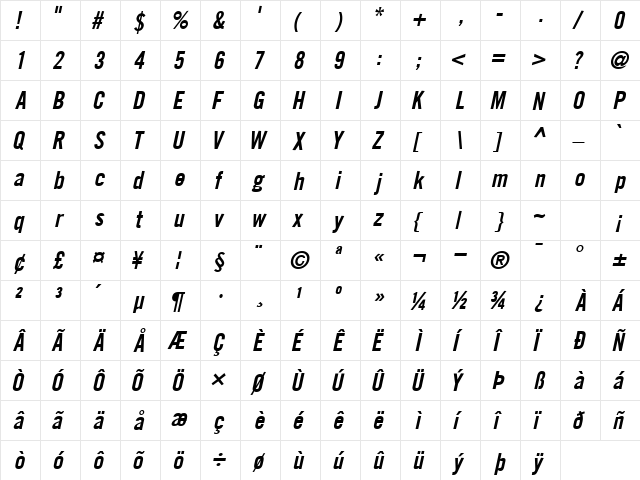
CommerceCondSSK Bold Italic
Design Context for CommerceCondSSK Typeface
CommerceCondSSK is a composed and adaptable typeface that performs quietly and consistently across a wide range of design contexts. The slanted form adds forward momentum and visual energy. The heavy weight commands attention and anchors typographic hierarchies. Its narrow stance lets it pack a punch even in space-constrained designs.
Pro Tip: Try CommerceCondSSK for annotation and caption copy alongside an upright companion — the contrast in angle creates a dynamic but ordered typographic system.